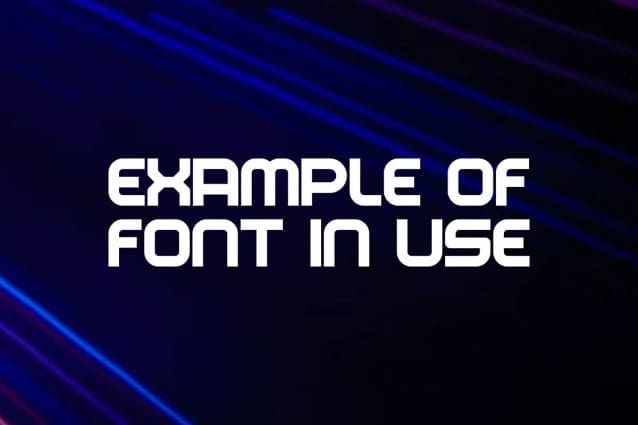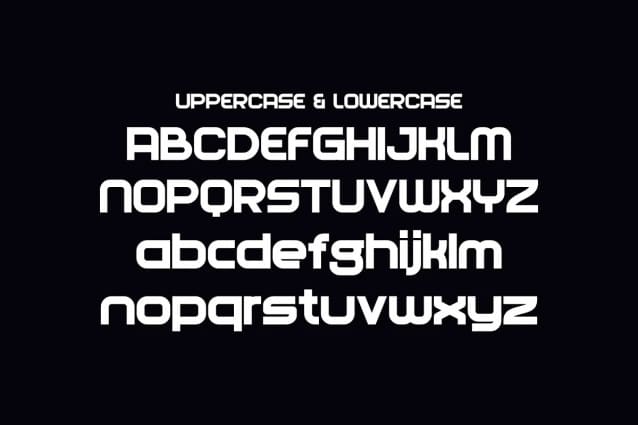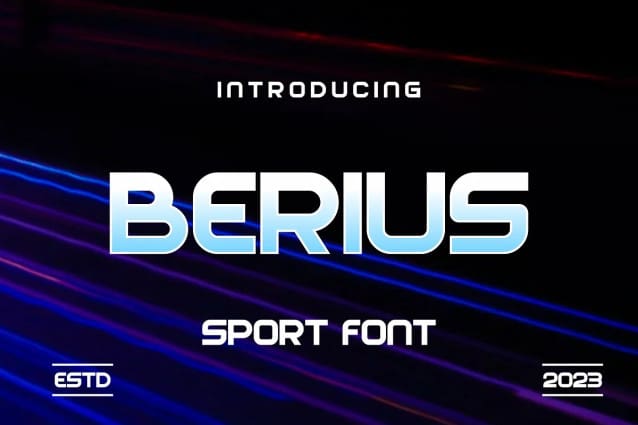
Berius Display Font
Berius Display Font is a unique and interesting sports display font. A little bit quirky, this font looks incredibly adept on a wide variety of contexts!